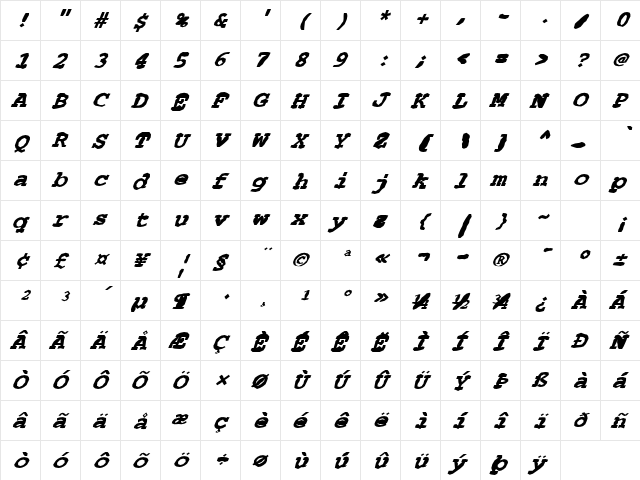
FZ BASIC 54 MANGLED ITALIC Normal
Design Context for FZ BASIC 54 MANGLED ITALIC Typeface
FZ BASIC 54 MANGLED ITALIC is a composed and adaptable typeface that performs quietly and consistently across a wide range of design contexts. The dynamic lean of this cut emphasises speed and emphasis in any layout.
Pro Tip: Try FZ BASIC 54 MANGLED ITALIC for annotation and caption copy alongside an upright companion — the contrast in angle creates a dynamic but ordered typographic system.